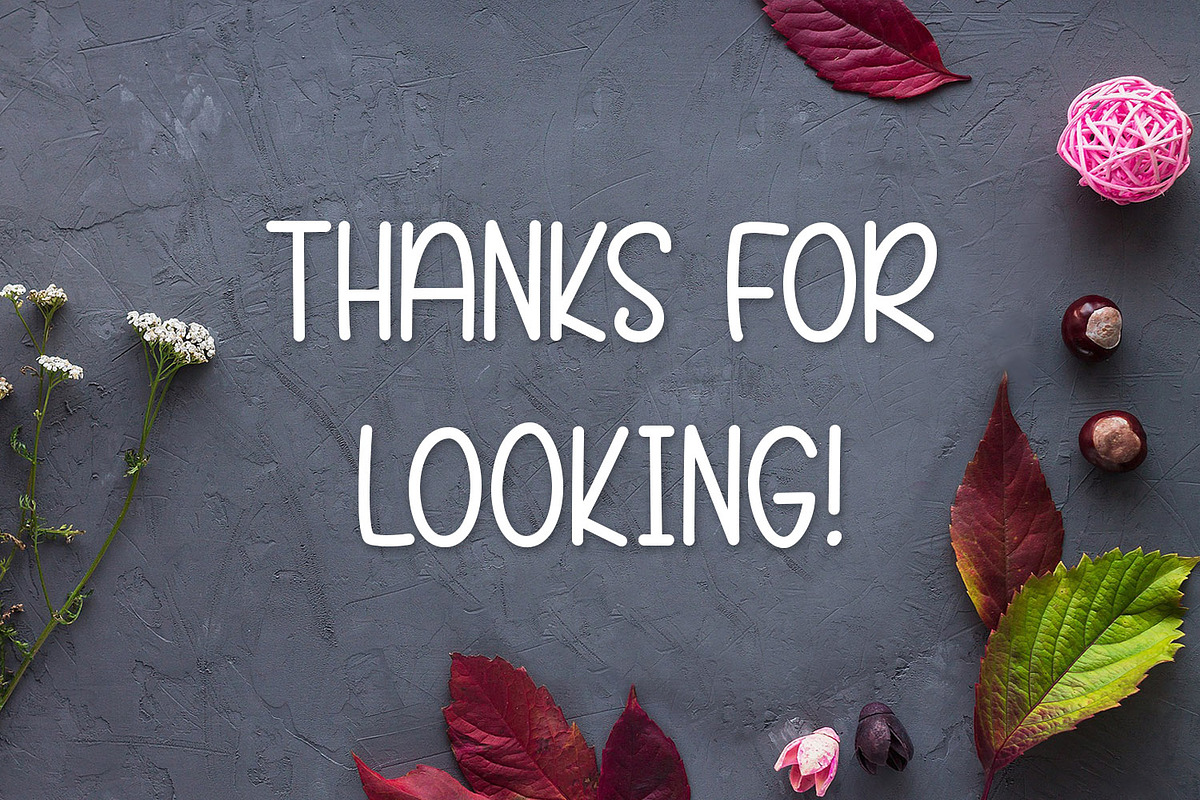
Luca Bell
Luca Bell is a handwritten font packed with extras!
Simple and smooth perfect for crafting, t-shirts, decals, cards, invitations and so much more. Use the included vector ornament doodles to compliment your design! Including double letter ligatures for every uppercase and lowercase letter so your design looks authentic.